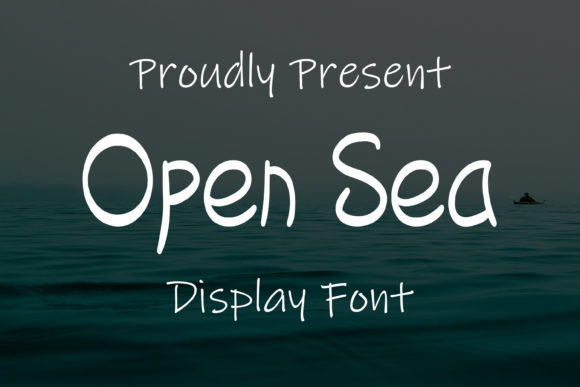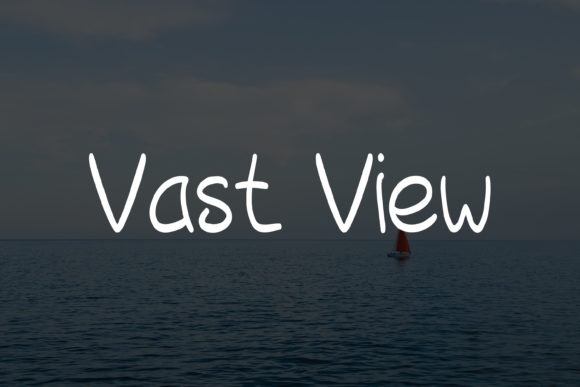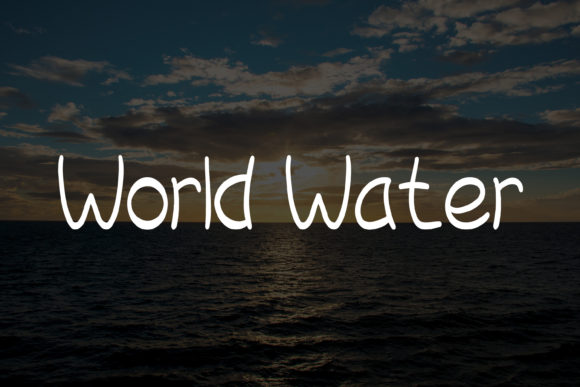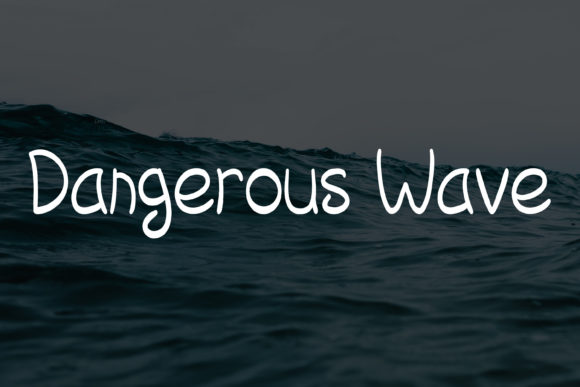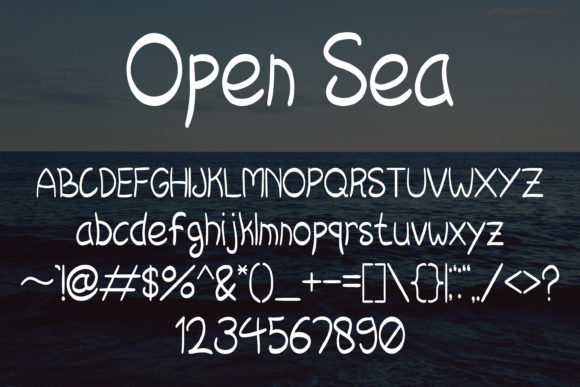
Open Sea Font
About Open Sea Font
Open Sea is a cute and simple lettered handwritten font. This font was particularly crafted for those who need a beautiful and refreshing look to their designs.